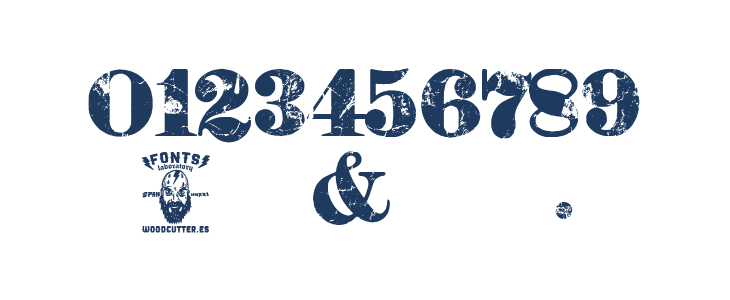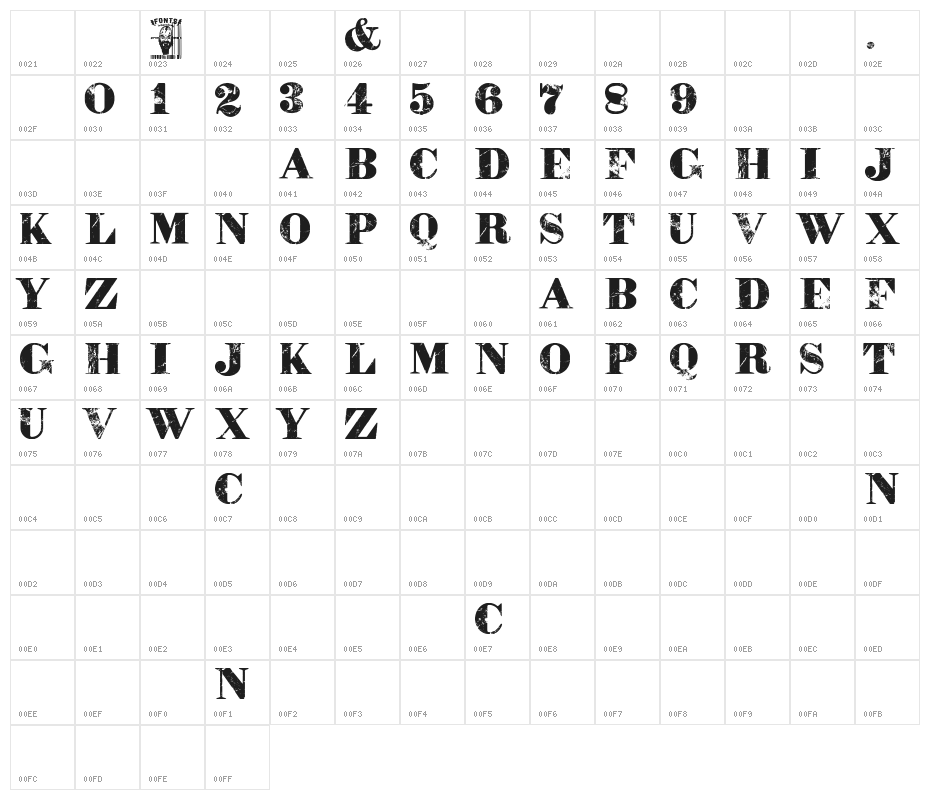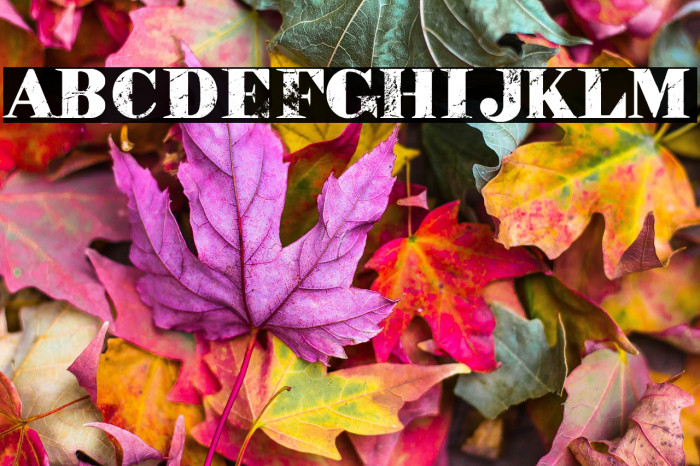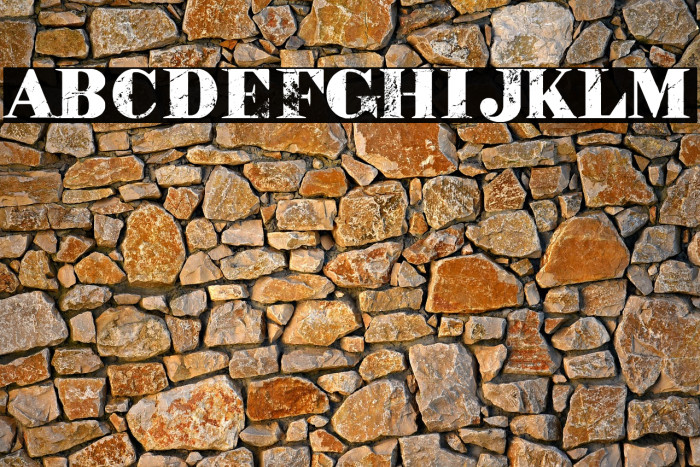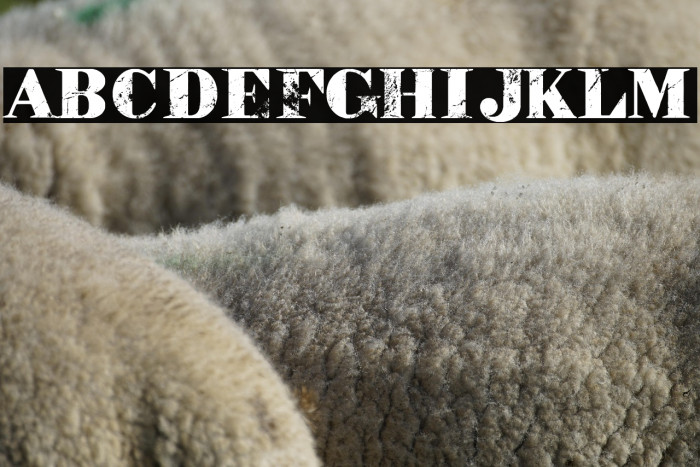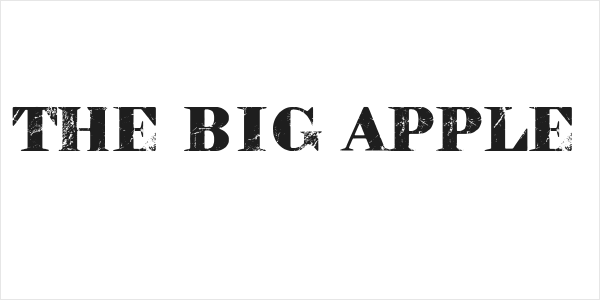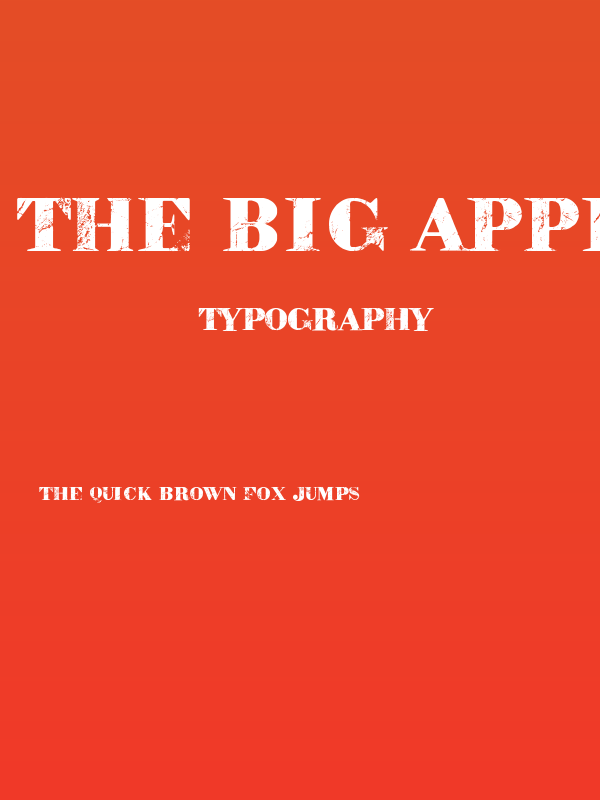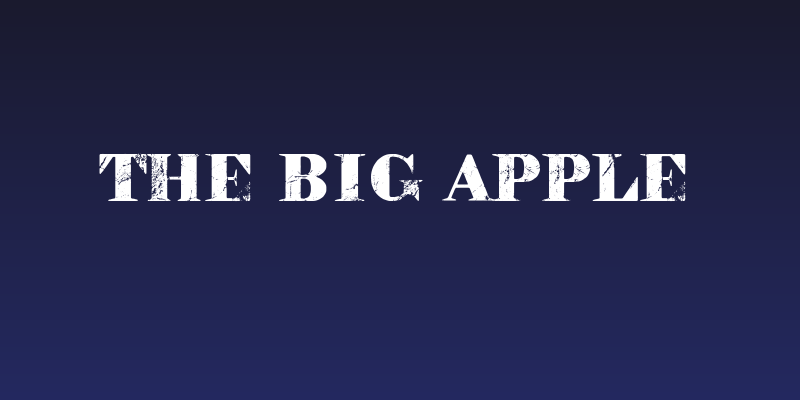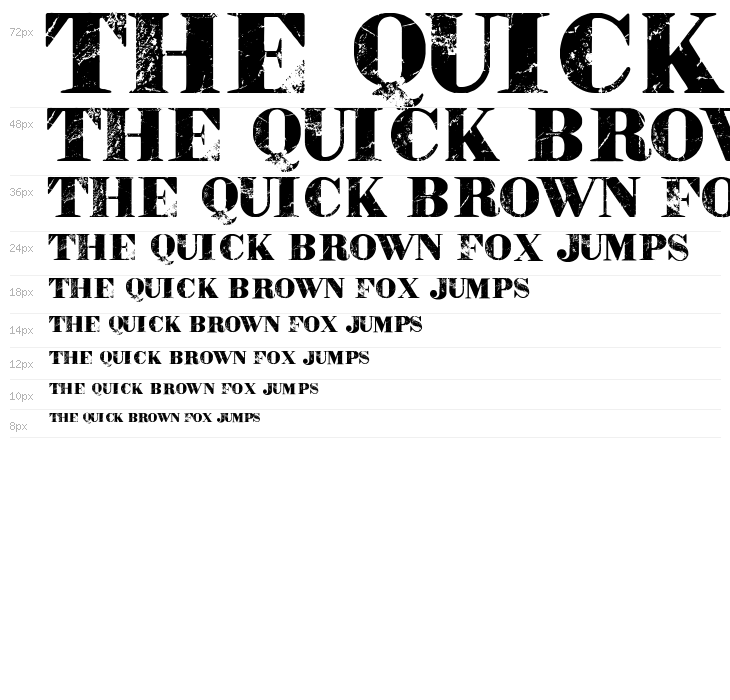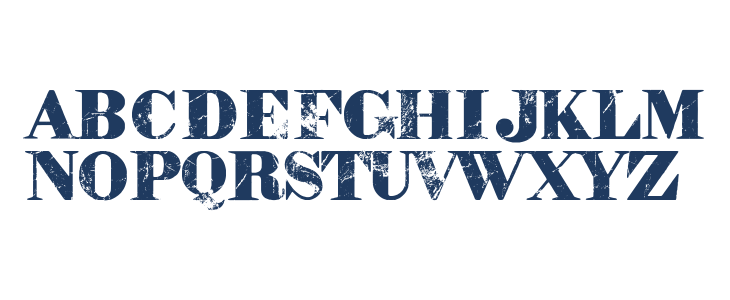
The Big Apple Font
The Big Apple Description
This font features a bold, distressed style that gives it a rugged, vintage appearance. The characters are heavily textured, creating a worn and weathered look reminiscent of old signage or print. The uppercase letters are prominent and commanding, while the lowercase letters maintain the same distressed aesthetic. Numbers and special characters follow the same design, ensuring consistency across all text. The font's boldness and texture make it ideal for projects that require a strong, impactful visual presence.
| Proposed Projects | Ideal for posters, album covers, branding for vintage-themed products, or any project needing a strong, textured typeface. |